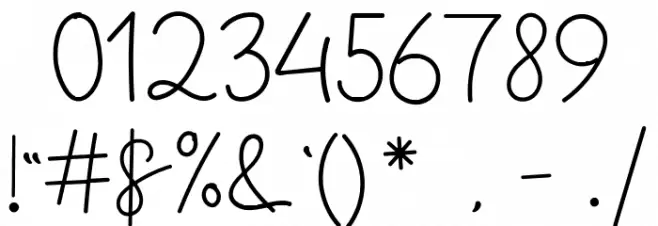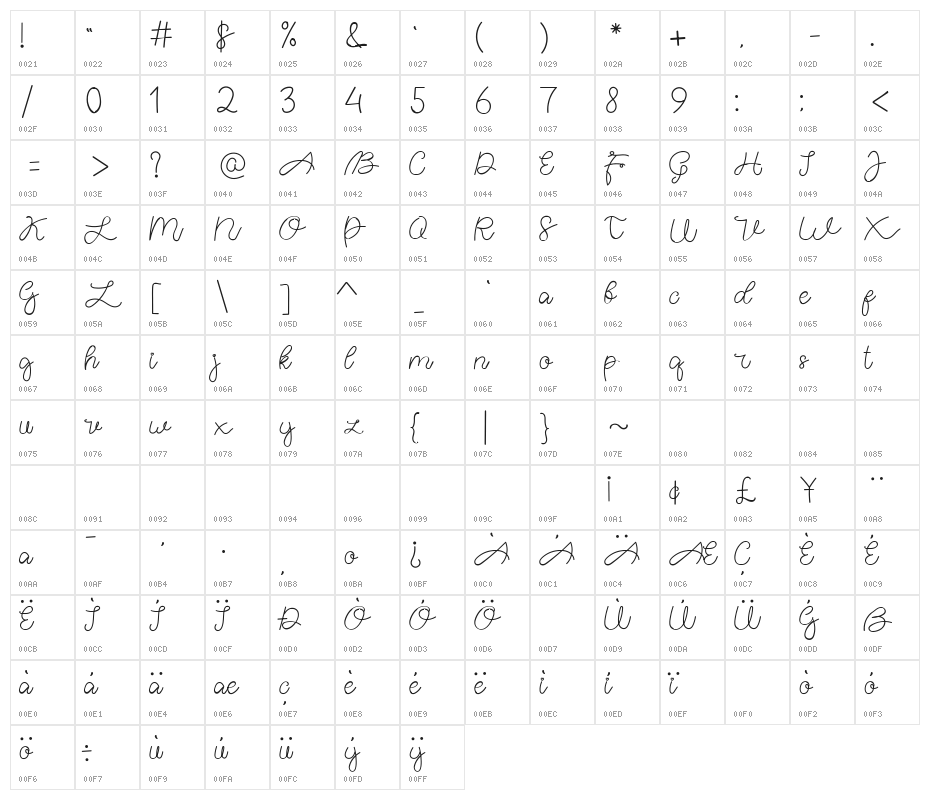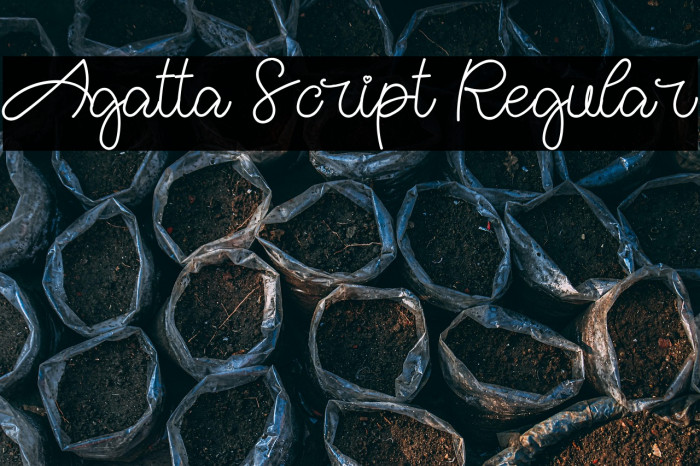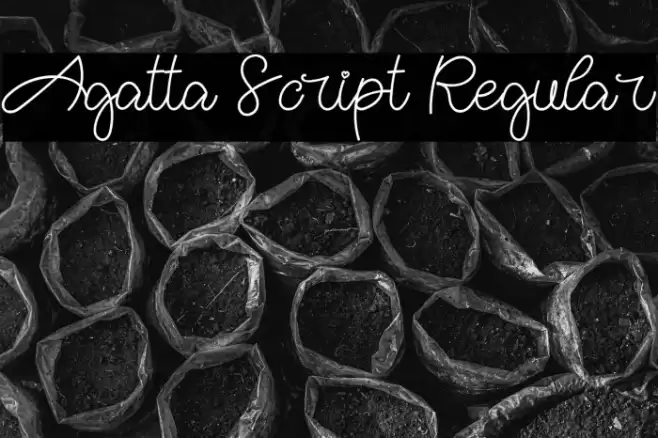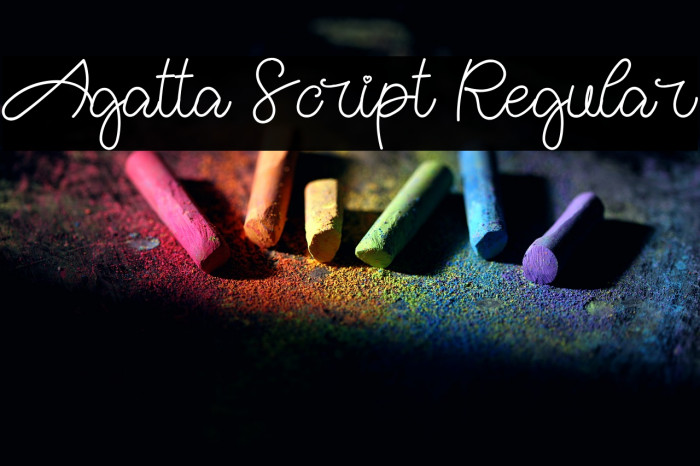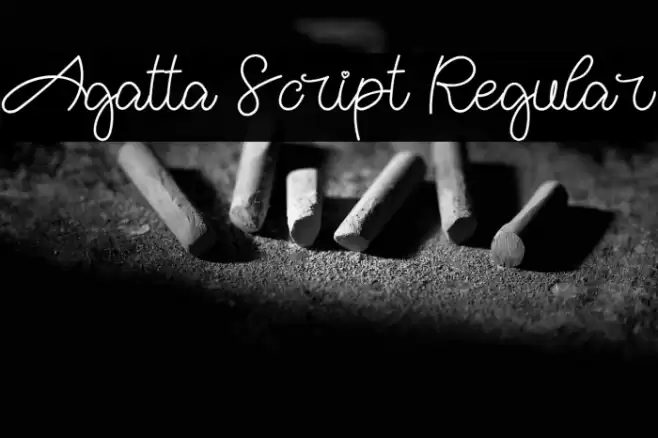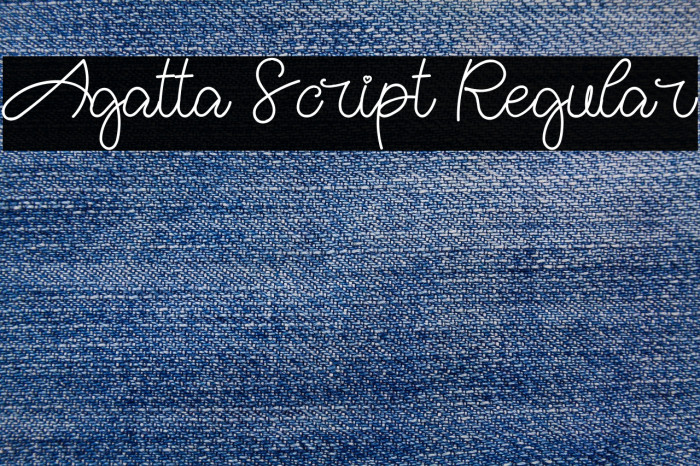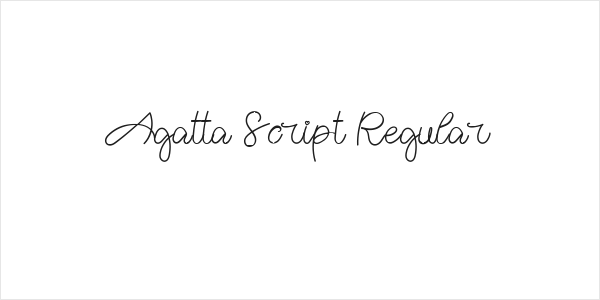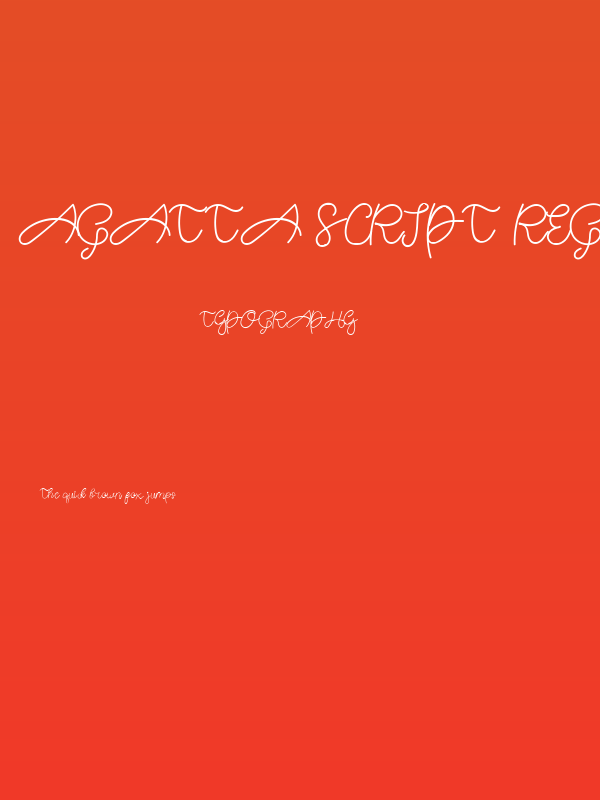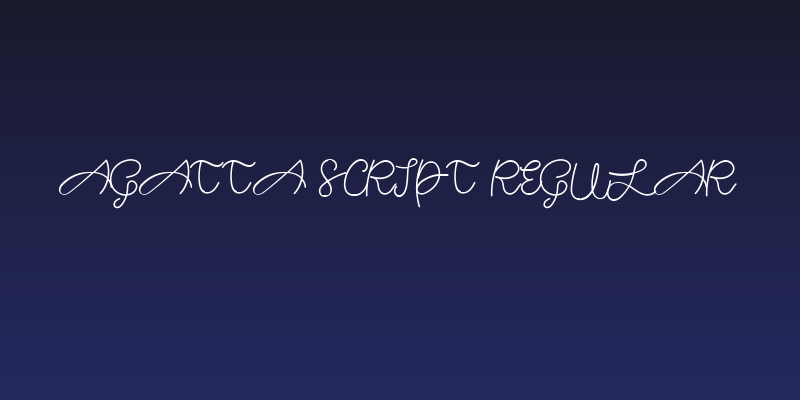
Agatta Script Regular Font
Agatta Script Regular Description
This font features a flowing, cursive style with elegant loops and swirls, giving it a handwritten appearance. The characters are interconnected, creating a seamless and fluid look. The uppercase letters are distinct with their elaborate flourishes, while the lowercase letters maintain a consistent and smooth flow. Numbers and special characters are designed to match the script's overall aesthetic, ensuring a cohesive look throughout. The font's playful yet sophisticated style makes it suitable for a variety of creative projects.
| Proposed Projects | Ideal for wedding invitations, greeting cards, logos, and branding materials that require a personal touch. |